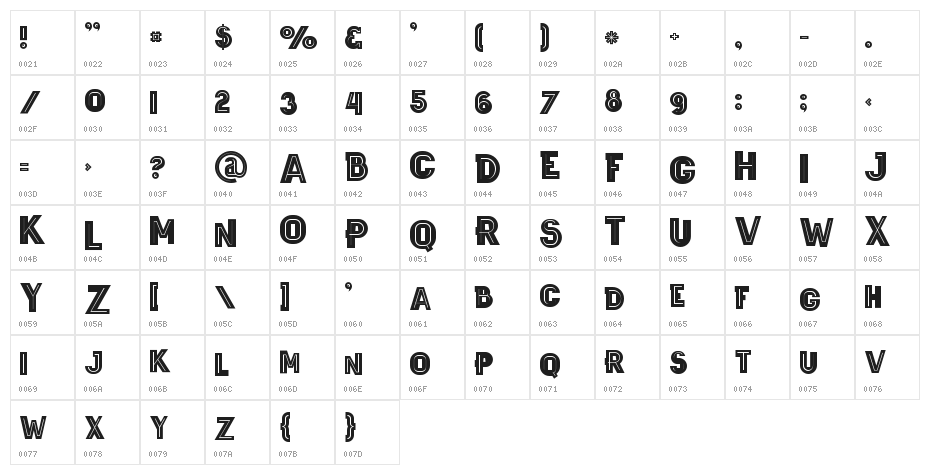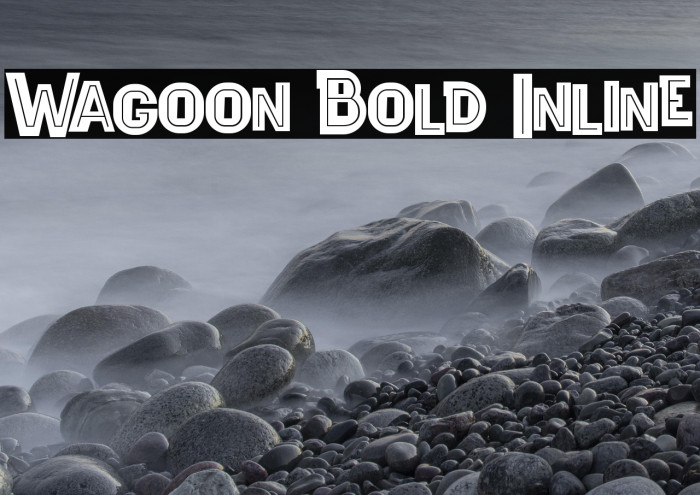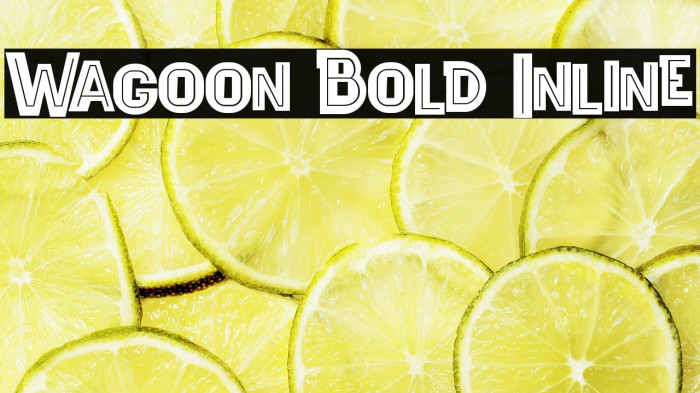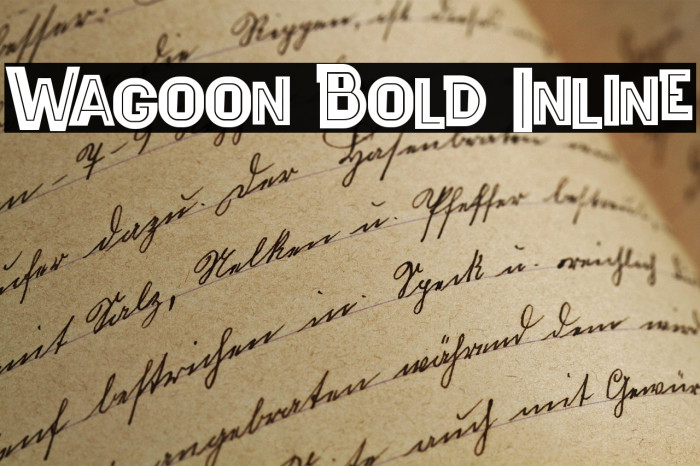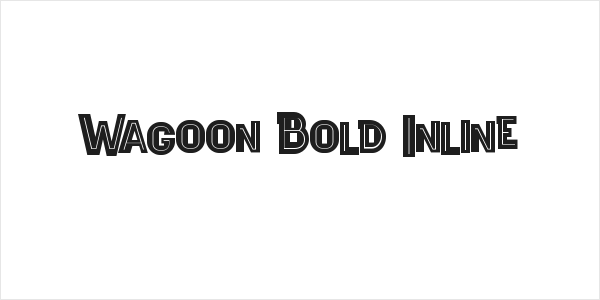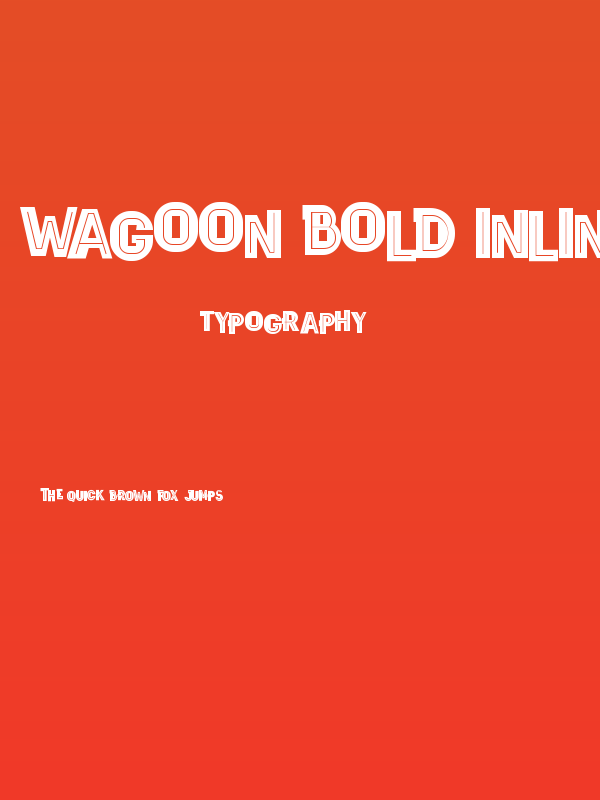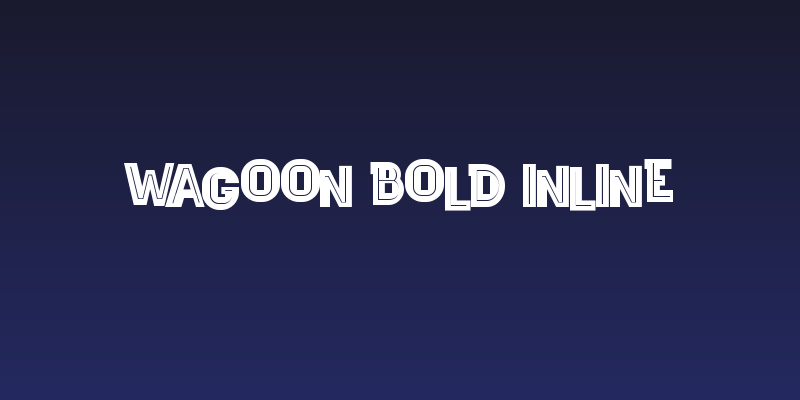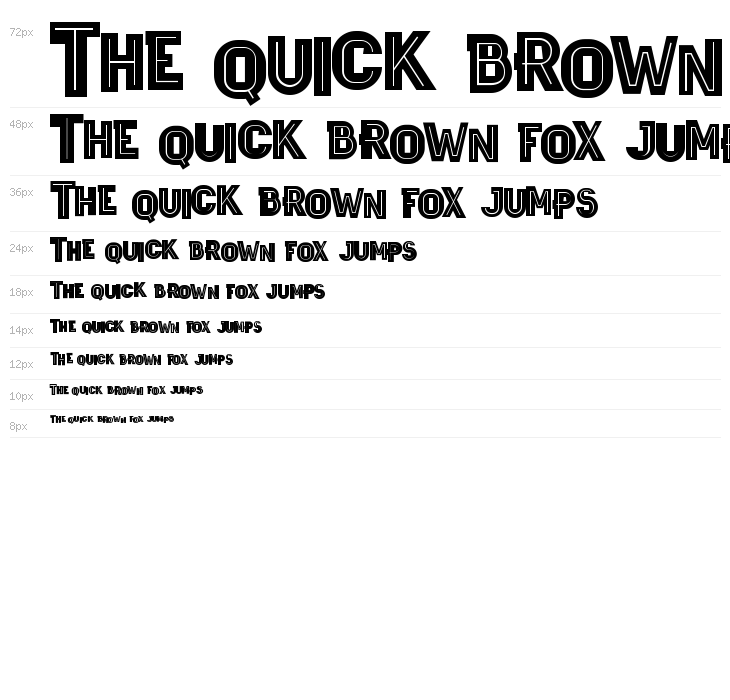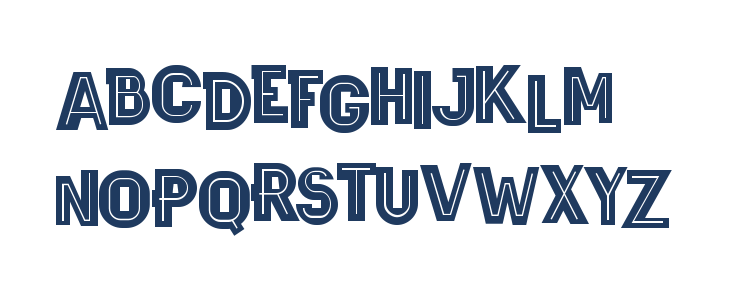
Wagoon Bold Inline Font
Wagoon Bold Inline Description
This font features a bold, inline style that combines strong geometric shapes with a playful, decorative touch. The uppercase and lowercase letters are designed with a consistent inline cutout, giving them a unique, eye-catching appearance. The numerals and special characters follow the same design principles, ensuring a cohesive look across all elements. The font's bold weight and inline detailing make it ideal for creating standout headlines and titles. Its modern and decorative style is perfect for projects that require a touch of creativity and flair.
| Overall Style | Modern, Decorative |
| Proposed Projects | Ideal for posters, logos, branding, and any design requiring a bold, creative touch. |